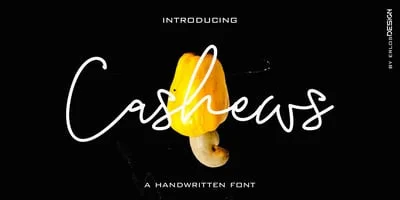
Cashews Font
This organic display font is perfect for healthy snack branding, nut company packaging, organic food marketing, health food store signage, nutrition product labels, superfood campaigns, natural wellness branding, and wholesome design projects that celebrate nutritious living and natural goodness.
Cashews Font is exciting because it embodies natural nourishment with its curved letterforms that feel as smooth and satisfying as premium cashew nuts. The font delivers organic sophistication while maintaining healthy readability that appeals to nutrition-conscious consumers.
The Cashews Font family includes regular and bold versions with natural decorative elements, nut symbols, and organic ornaments, providing designers with comprehensive tools for creating wholesome typography that nourishes brand identity.
Ready to go nuts for healthy design? Cashews Font offers designers nutritious letterforms that curve with natural elegance and wholesome appeal. This satisfying typeface combines organic aesthetics with professional functionality, making it ideal for health food brands, nutrition companies, and wellness-focused campaigns. Whether you're designing superfood packaging, healthy snack advertisements, or nutrition education materials, this font delivers nourishing results. The naturally crafted characters feature organic curves while maintaining excellent readability across health applications. Perfect for businesses in healthy snacks, organic foods, nutrition services, and wellness products that celebrate natural goodness and nutritious living. The font's nutty construction creates memorable brand recognition that resonates with health-conscious consumers worldwide. Each letter showcases deliberate nourishment that mirrors the satisfying crunch of premium nuts. Download today and cultivate healthy success in your creative projects with this premium display font that transforms ordinary text into extraordinary expressions of natural nutrition and the wholesome goodness of Cashews Font wellness.